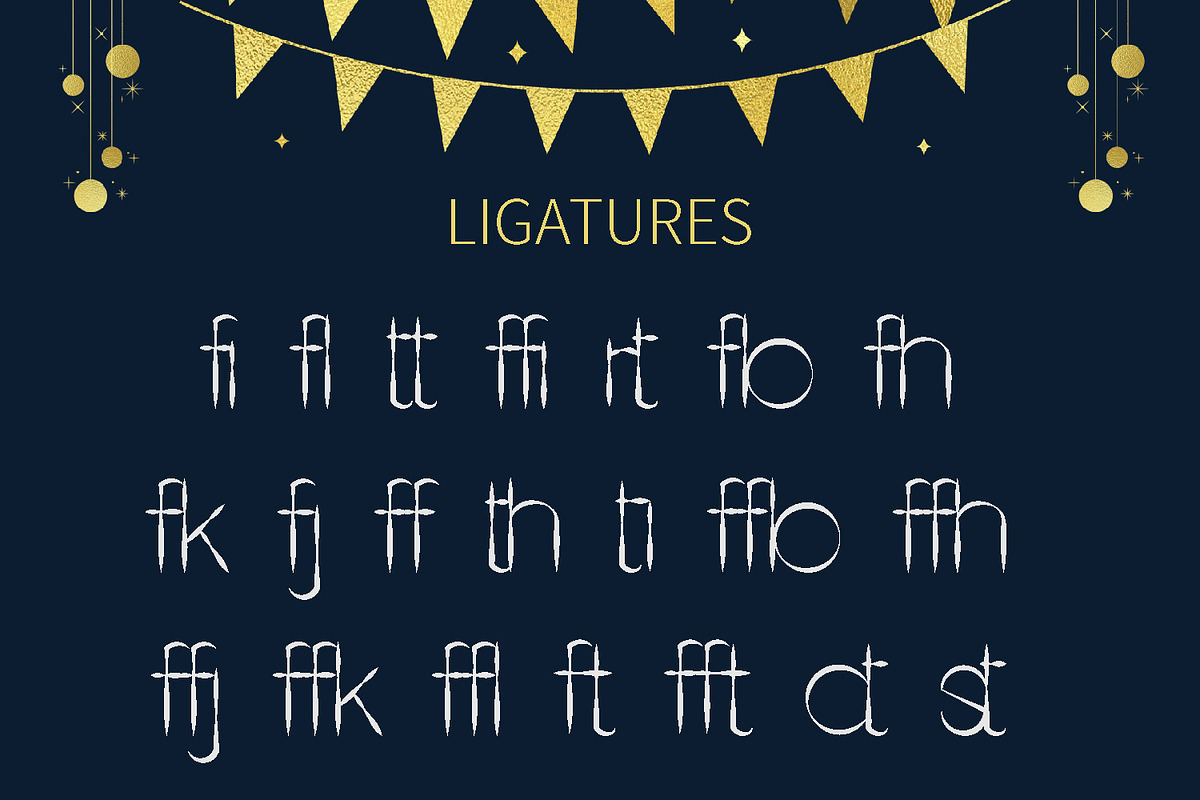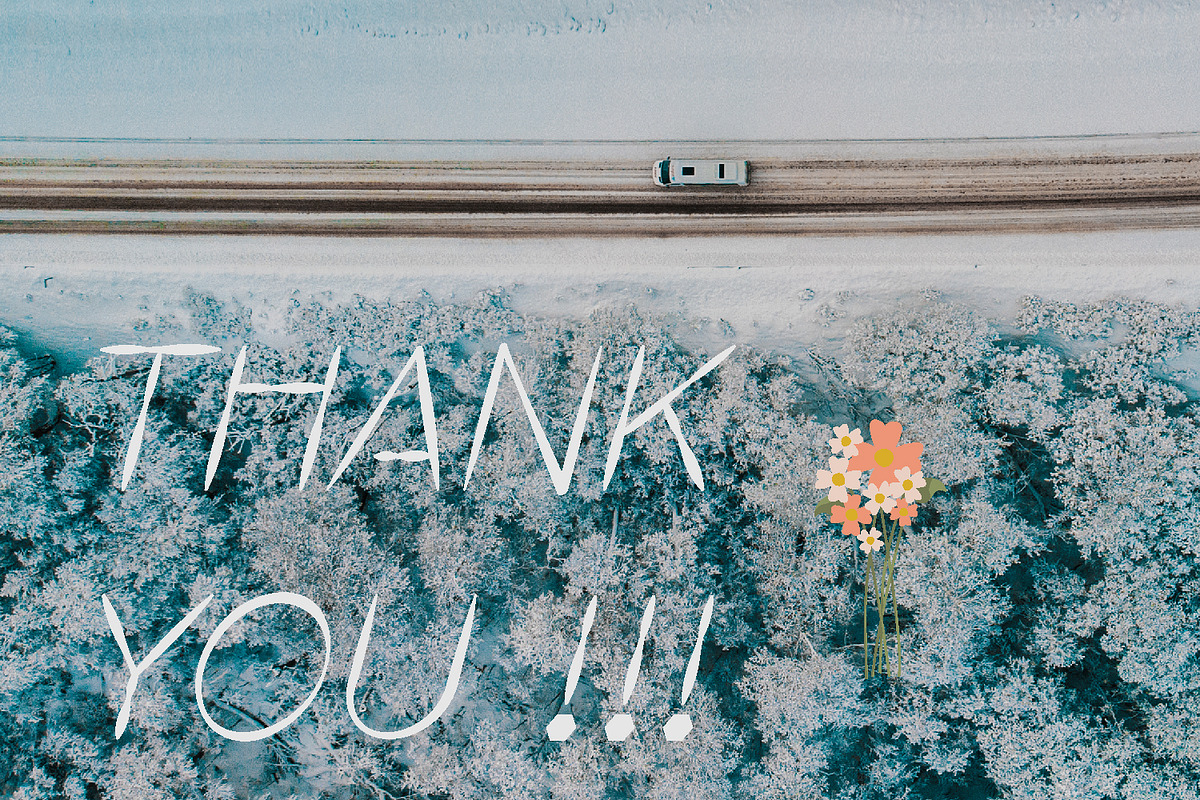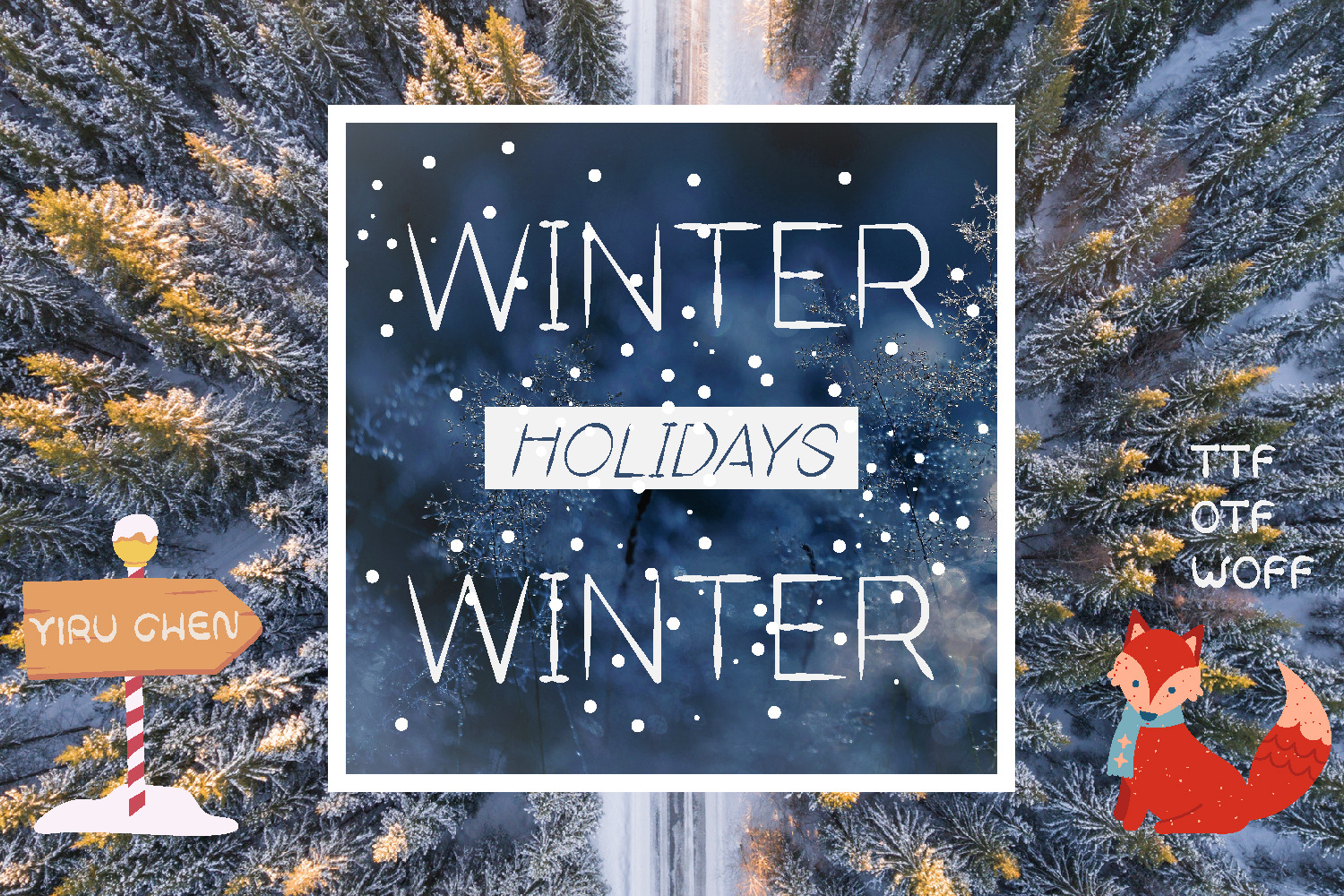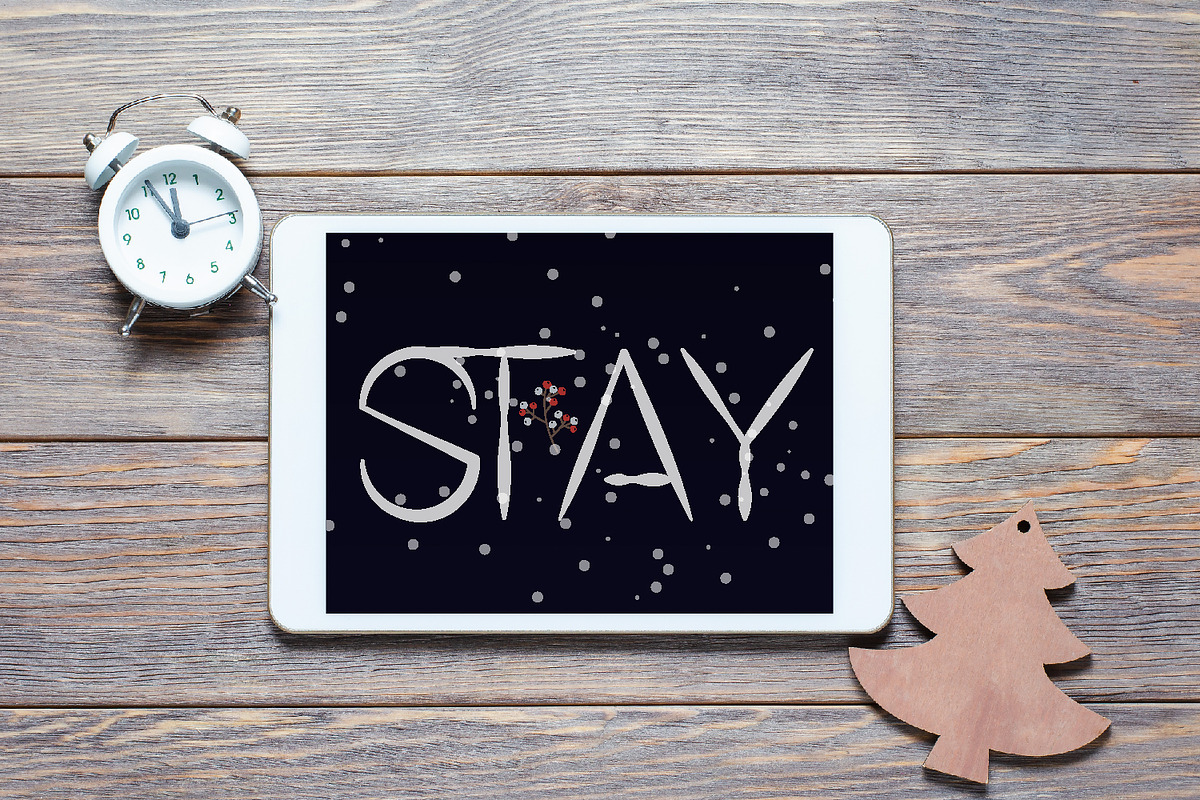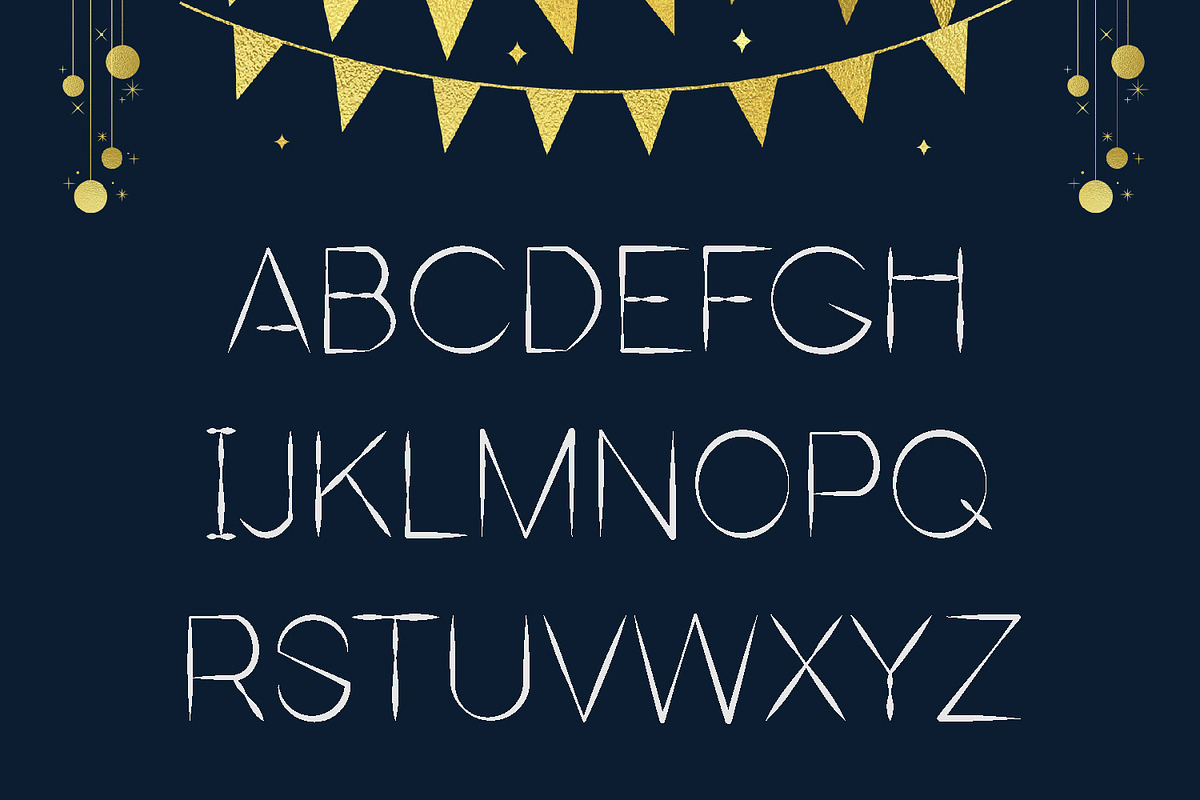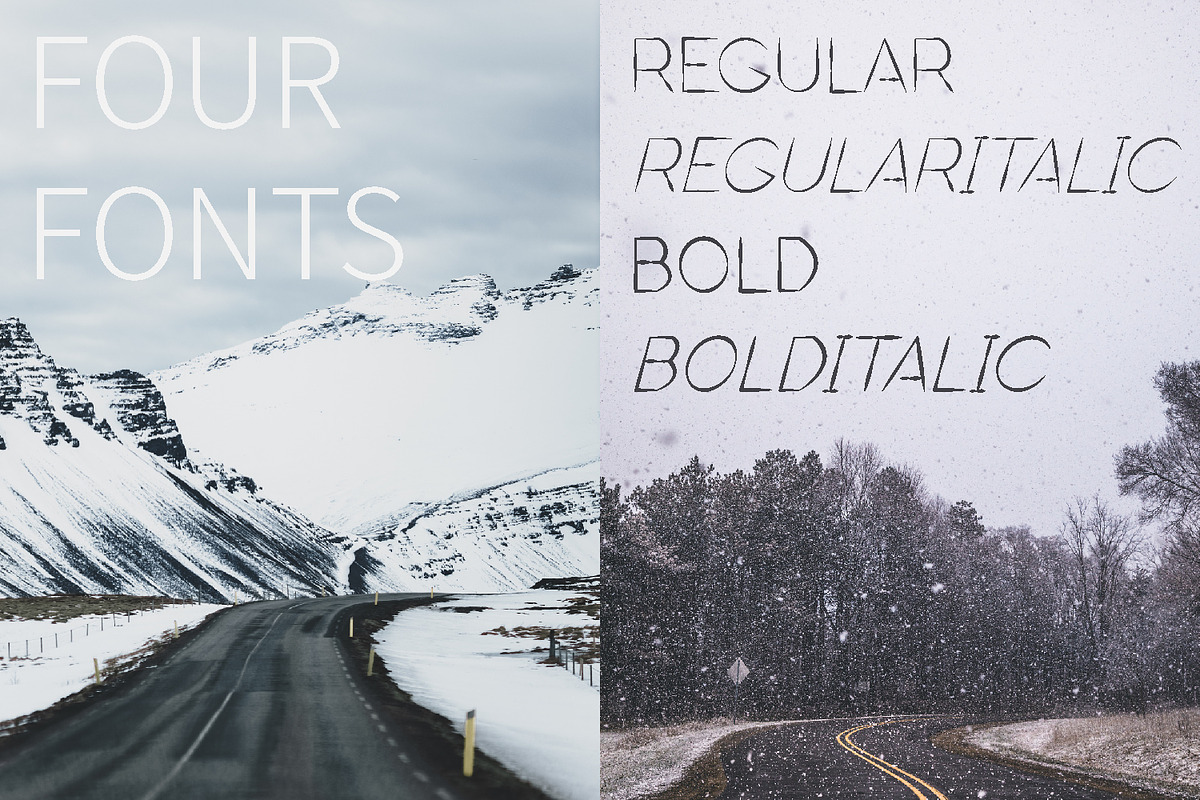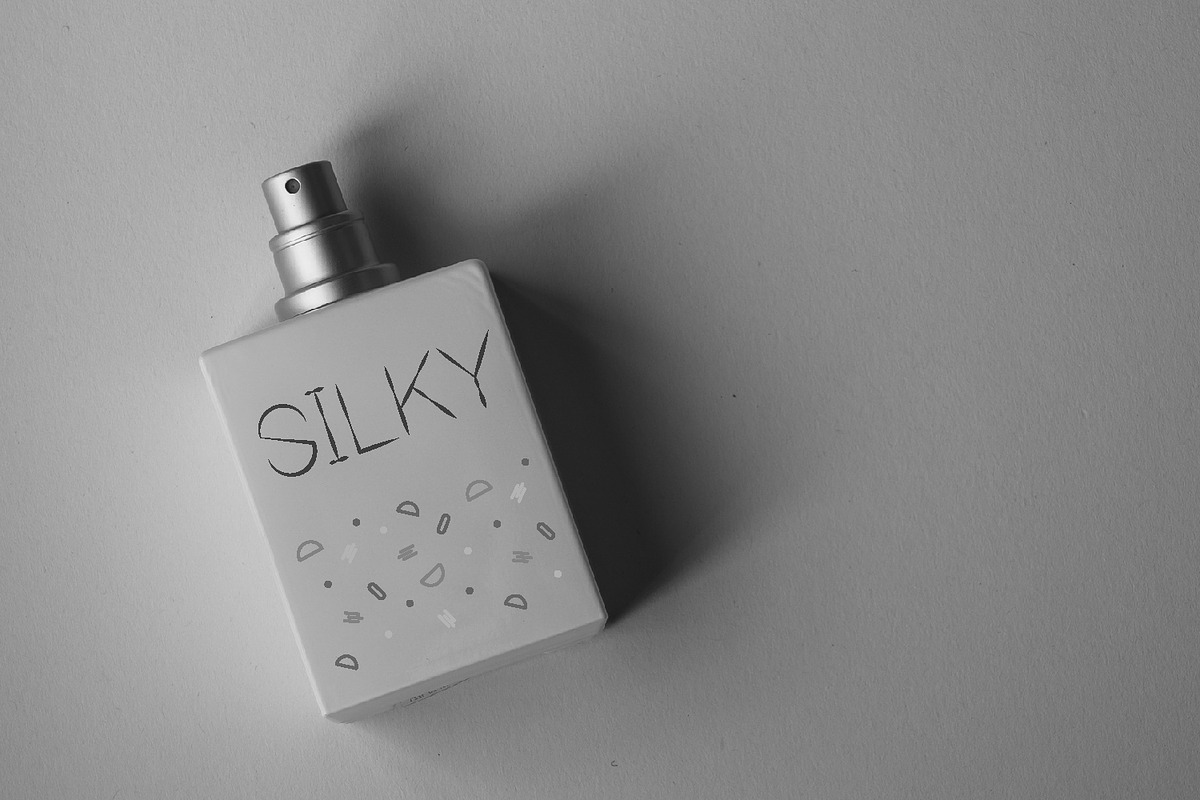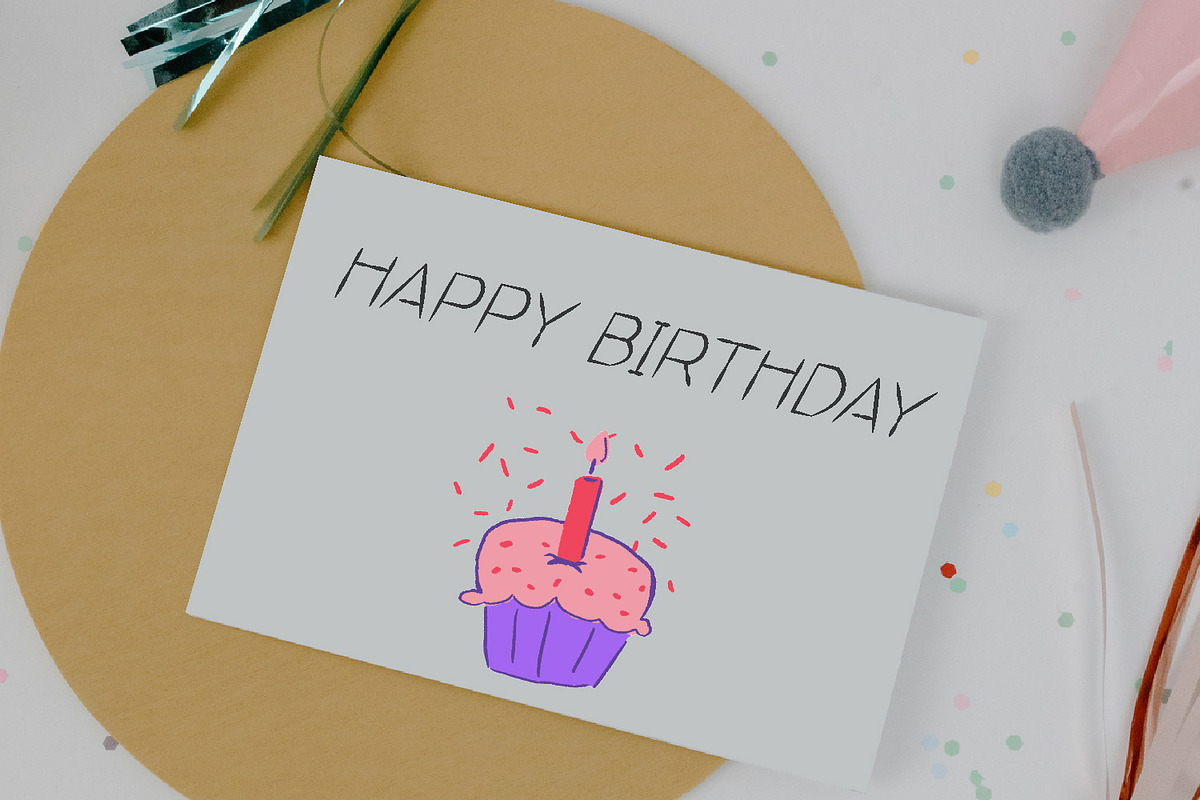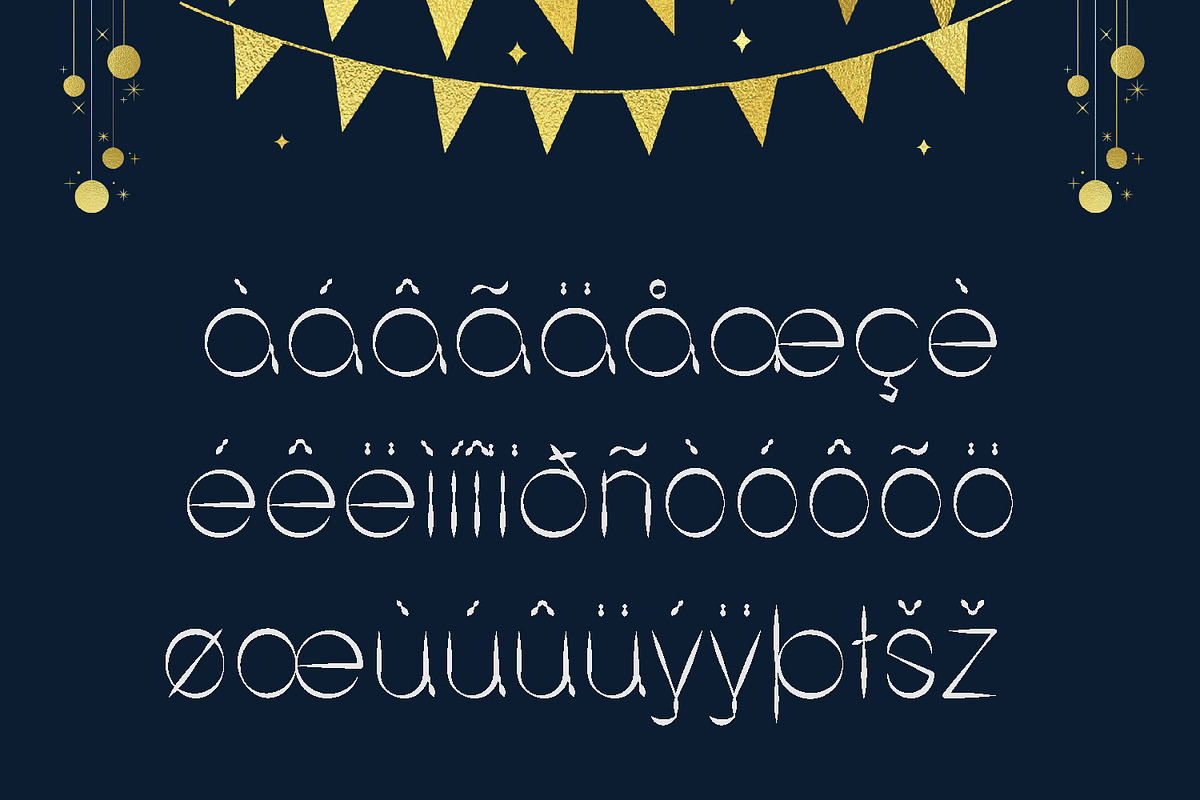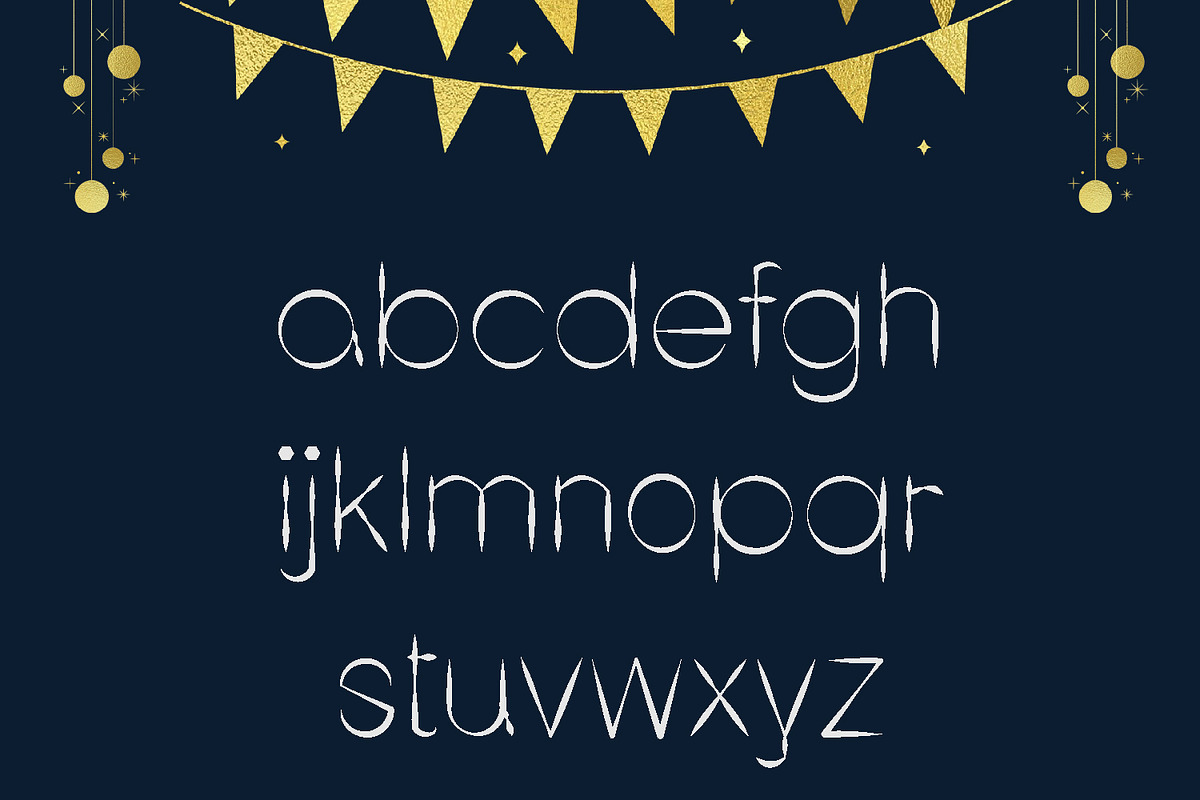
Winter Holidays Sans Serif Font
Winter Holidays Modern Sans Serif Font has Four fonts. Bold, BoldItalic, Regular, RegularItalic. Modern sans serif fonts, beautiful lines, stylish and unique. Very suitable for use in festivals and commemorative moments. This font is suitable for brand design, title, poster, packaging, clothing, banner, magazine, book design, business card design, website design, instagram, pintestest, etc. Provide wonderful and changeable design.